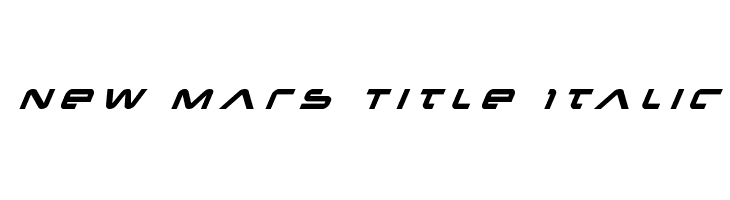
A bold, geometric font with a futuristic and angular design.
A bold, italicized font with sharp, angular edges and a futuristic style.
A futuristic, semi-italic font with bold, angular characters.
A bold, italic, futuristic font with angular, geometric characters.
A futuristic, italicized font with bold, angular characters.
A futuristic, expanded italic font with sleek, angular characters.
A futuristic italic font with sharp angles and a dynamic, modern design.